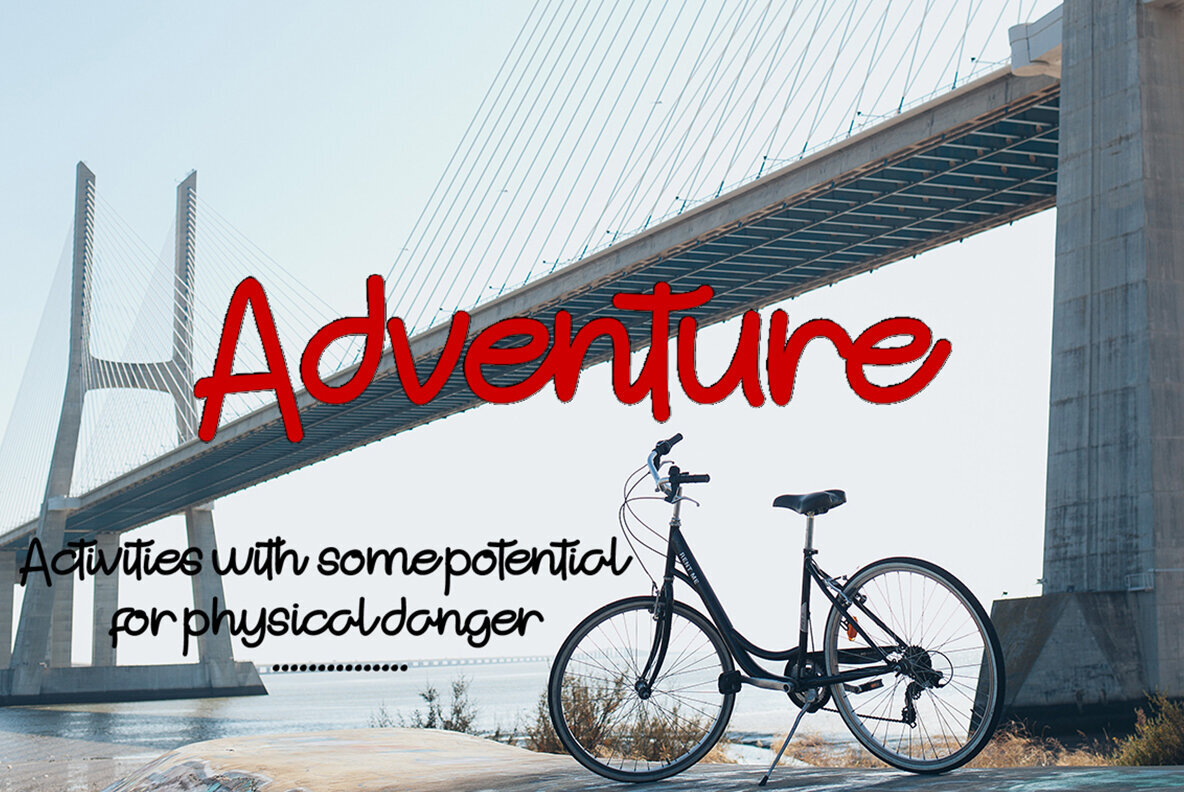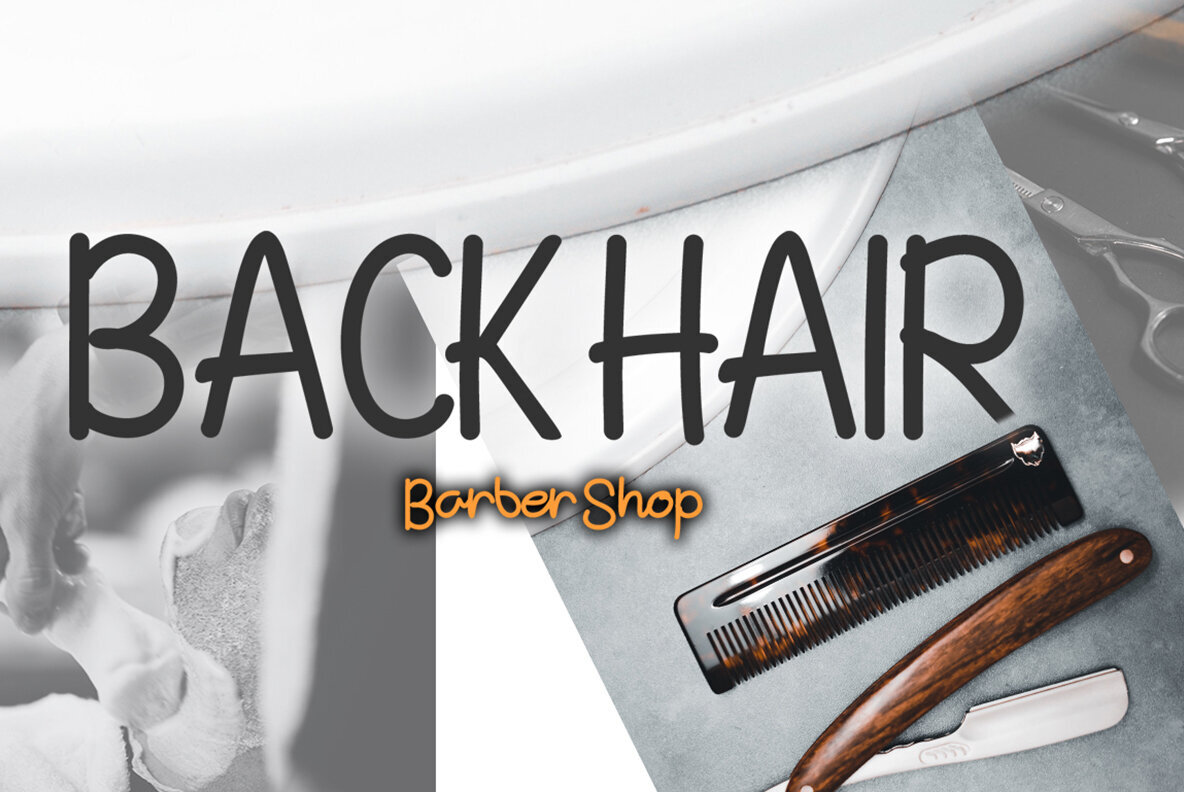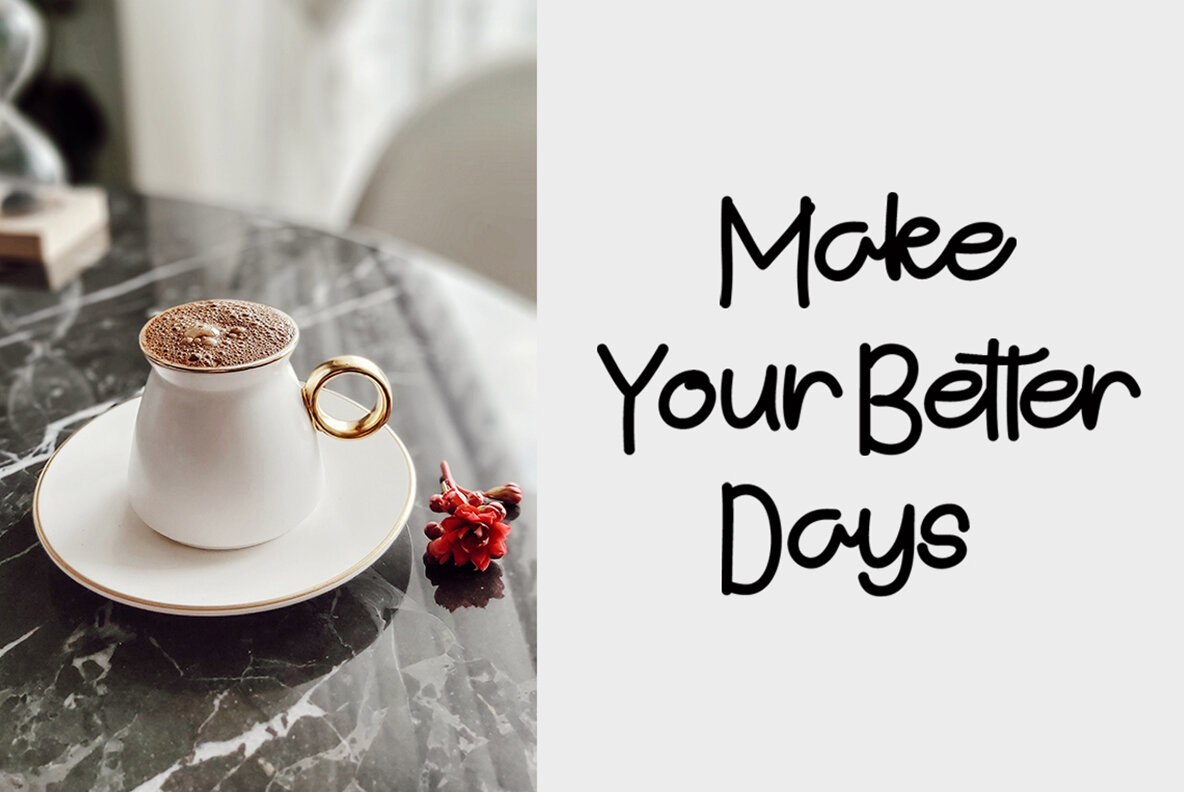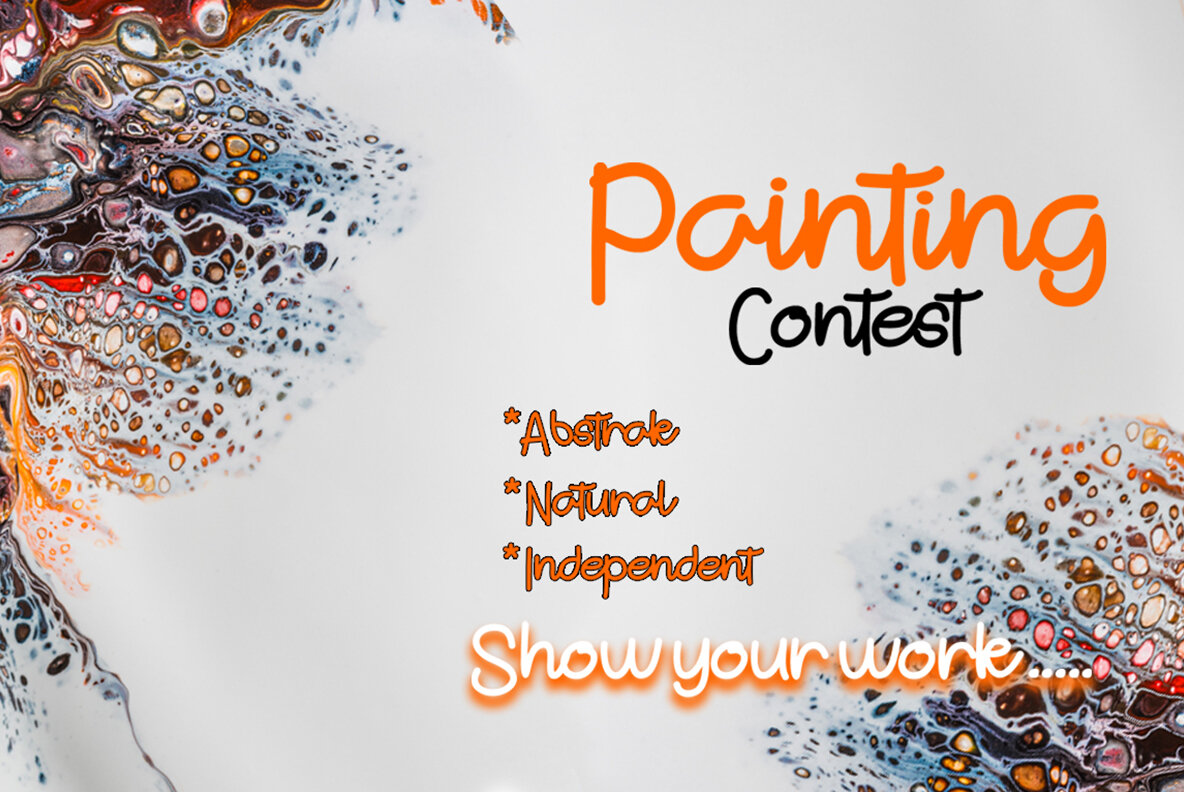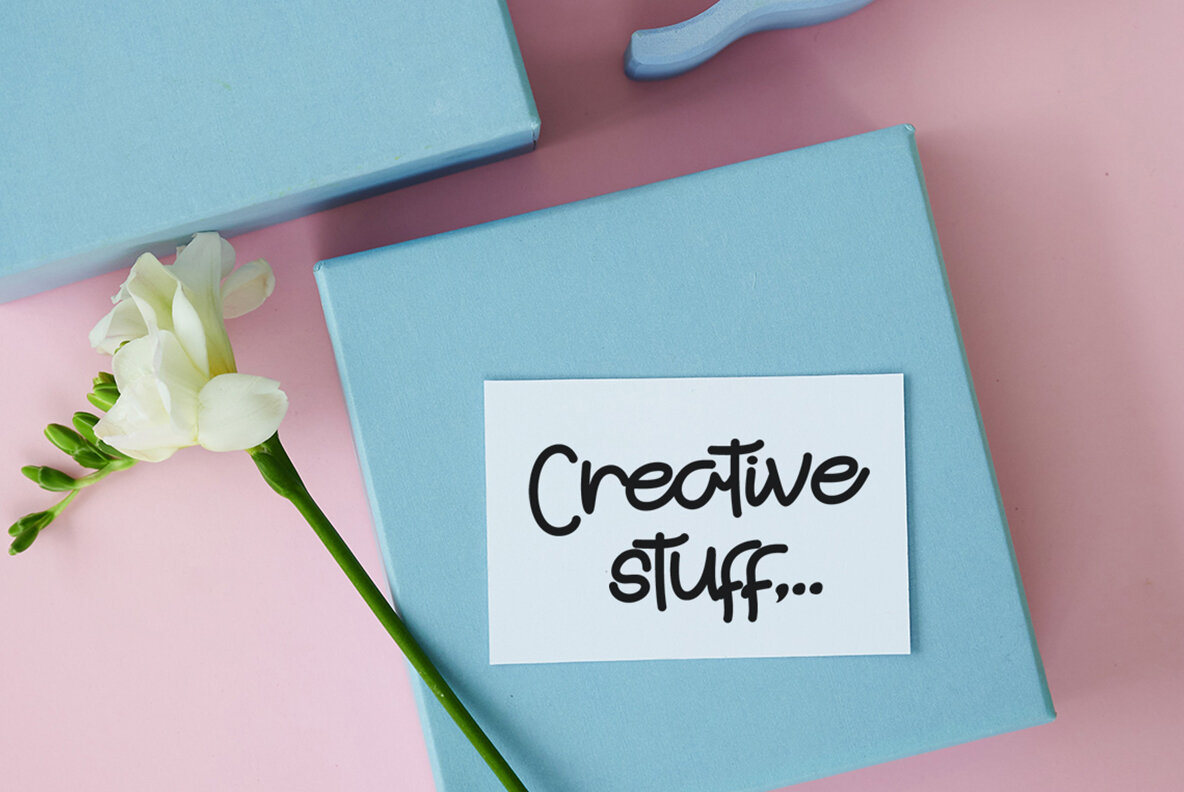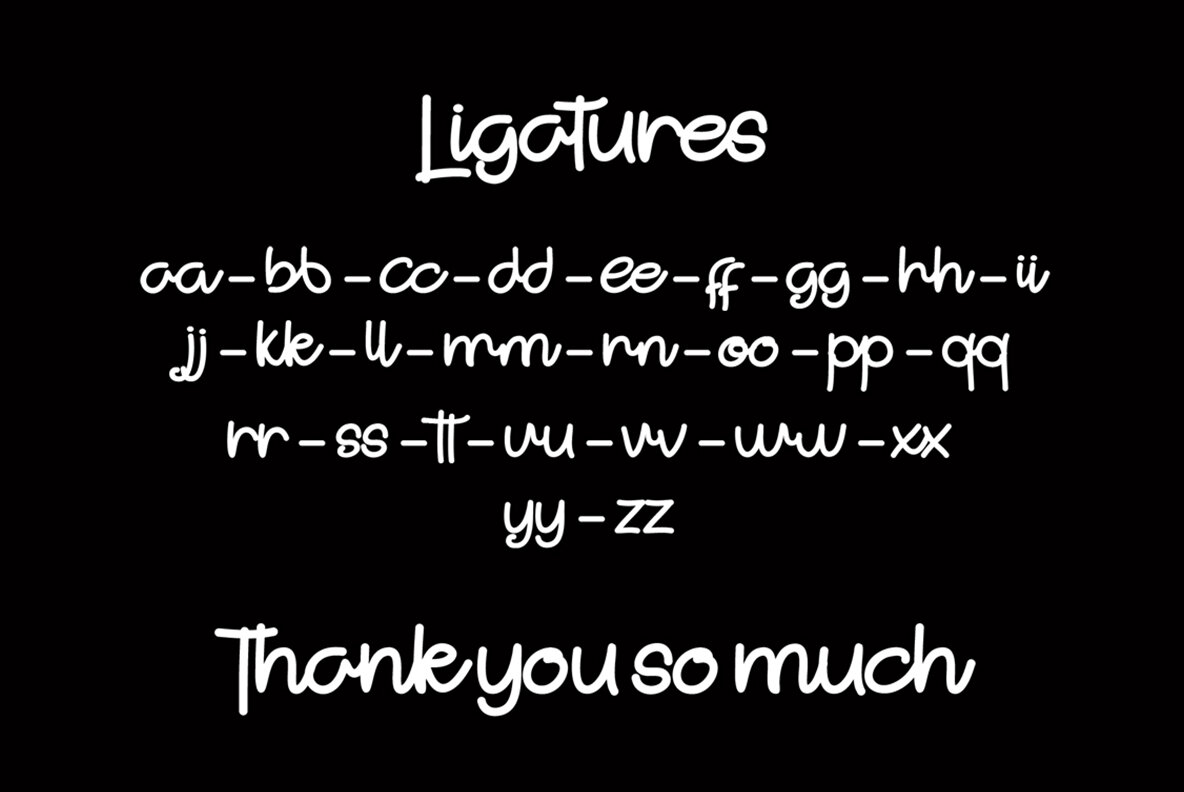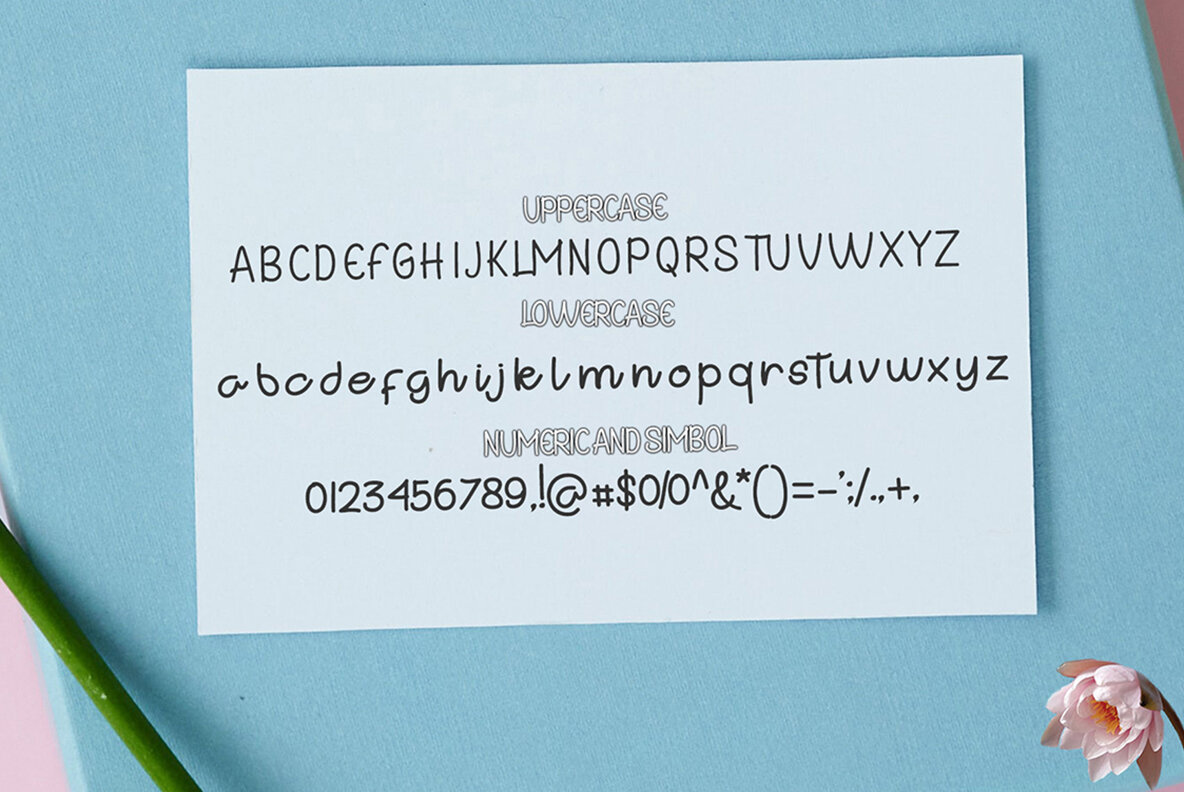
Challenger Font
Challenger Regular
Challenger is a beautifully crafted handwritten font designed to bring elegance and readability to a variety of projects. Ideal for logo design, branding, apparel design, signage, posters, wedding invitations, and more, it combines simplicity with sophistication.Challenger: Versatile Handwritten Script Font